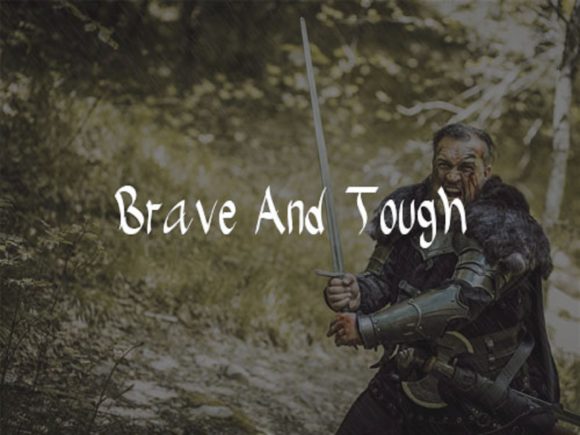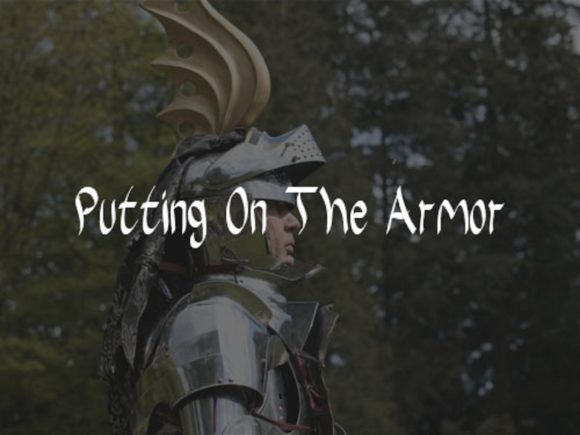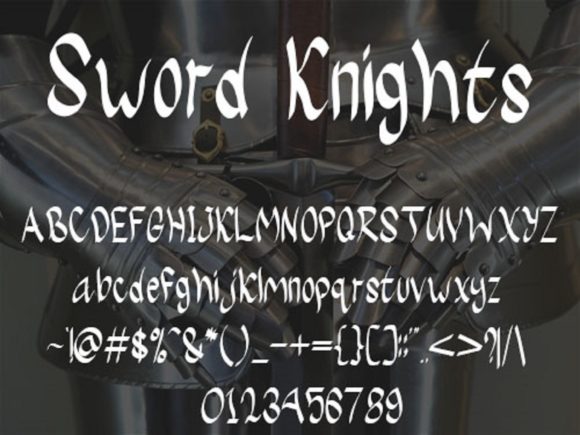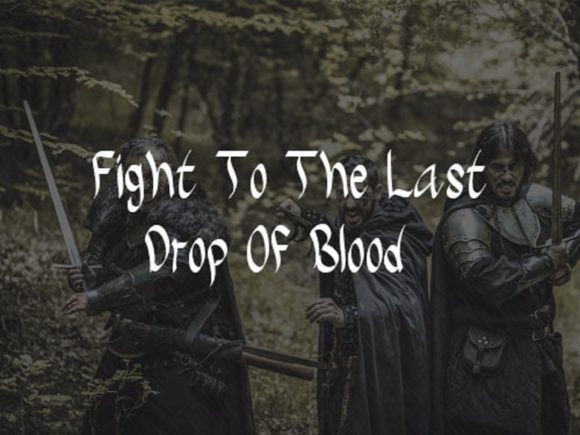
Sword Knights Font
About Sword Knights Font
Sword Knights is a charming and friendly handwritten font that brings a playful and approachable vibe to your designs. With its natural and distinctive style, this font adds a touch of whimsy and creativity to a wide range of projects.
The handwritten nature of Sword Knights creates a sense of authenticity and personalization, making it perfect for various design applications. Whether you’re designing greeting cards, invitations, posters, or social media graphics, this font will infuse your creations with a warm and friendly atmosphere.
The versatility of Sword Knights extends beyond its playful charm. It can be used in projects related to children’s themes, crafts, and DIY projects. The unique letterforms and the natural flow of the font make it an ideal choice for creating engaging and visually appealing designs targeted towards a younger audience.
Additionally, Sword Knights can also be utilized in branding and logo designs. Its friendly and approachable style can help establish a connection with your audience and reflect the values of your brand. From small businesses to creative ventures, this font adds a personal and unique touch to your visual identity.
The creative possibilities with Sword Knights are endless. Its natural and unique style allows you to explore various design concepts, from handwritten quotes and illustrations to product packaging and signage. Let your imagination soar and embrace the limitless potential of Sword Knights in bringing a friendly and welcoming vibe to your designs.
In summary, Sword Knights is a sweet and friendly handwritten font that adds a playful and approachable touch to your designs. Its natural and distinctive style makes it suitable for a wide range of projects, from greeting cards and invitations to children’s themes and branding. Unleash your creativity and let Sword Knights inspire your next design adventure.